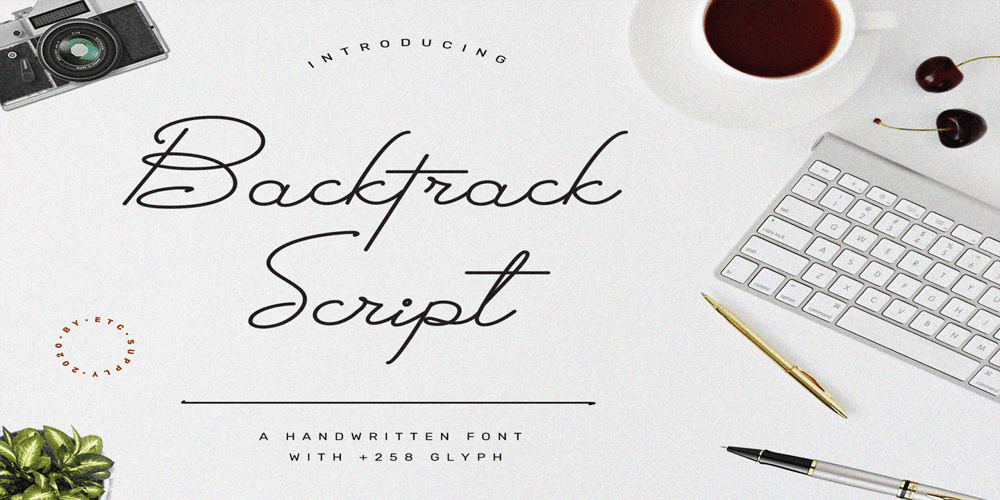
Backtrack Script Font Family was designed by Ilham Nashrul Huda and published by Etcsupply. Backtrack Script contains 2 styles and family package options. Backtrack Script Typeface design by Ilham Nashrul Huda & published by Etcsupply at 3rd August 20 in market place. This font very suitable for photograpy logo, book/magazine cover, business card design, typelogo, packing, advertisement and others.Backtrack Script Features : + 258 total glyph End swash alternate 5 Ligature Multilingual Support 13 Swash Character PUA encode Support